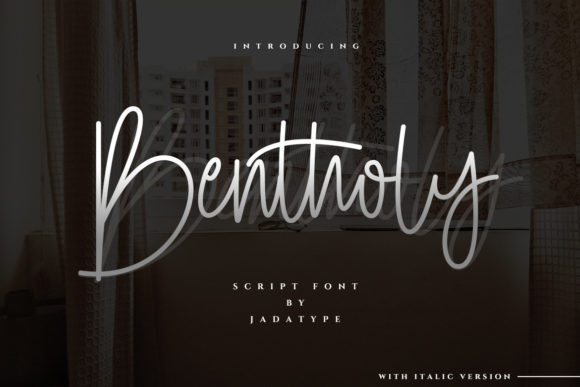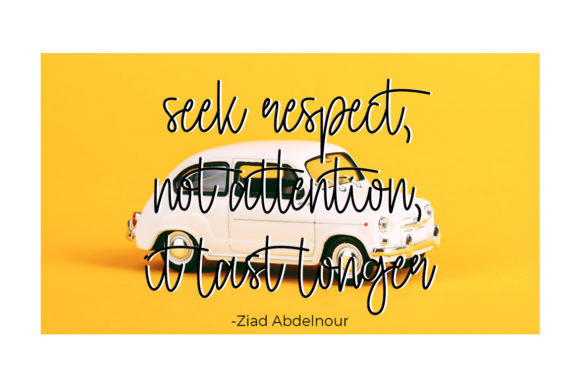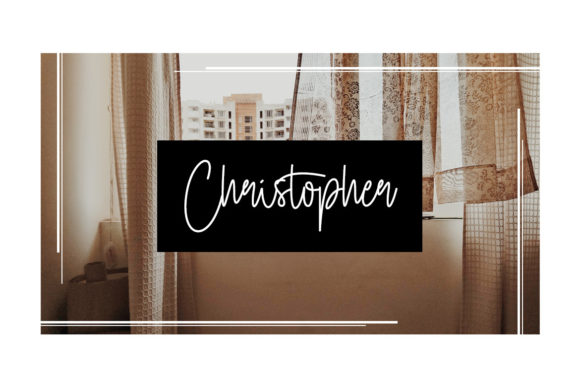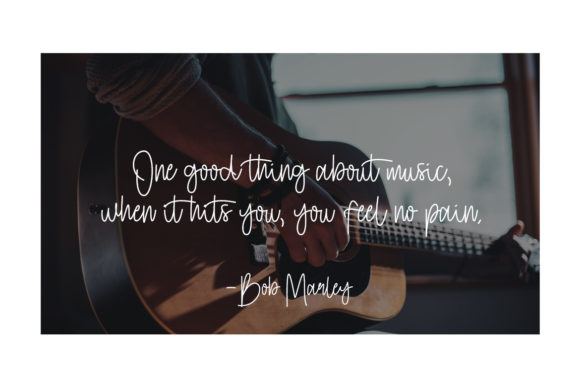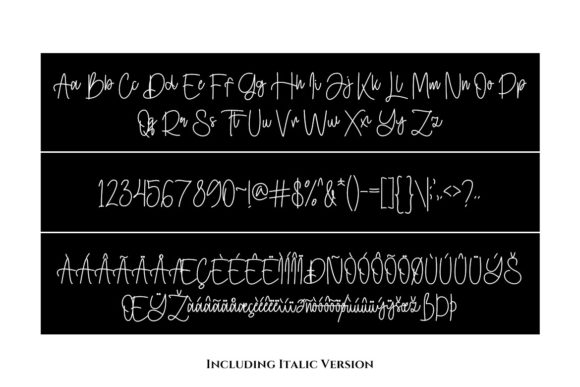
Bentholy Font
About Bentholy Font
Bentholy is a chic, thin script font that emanates sophistication and elegance. Its stylish alternates and ligatures make this font the perfect match for any project.